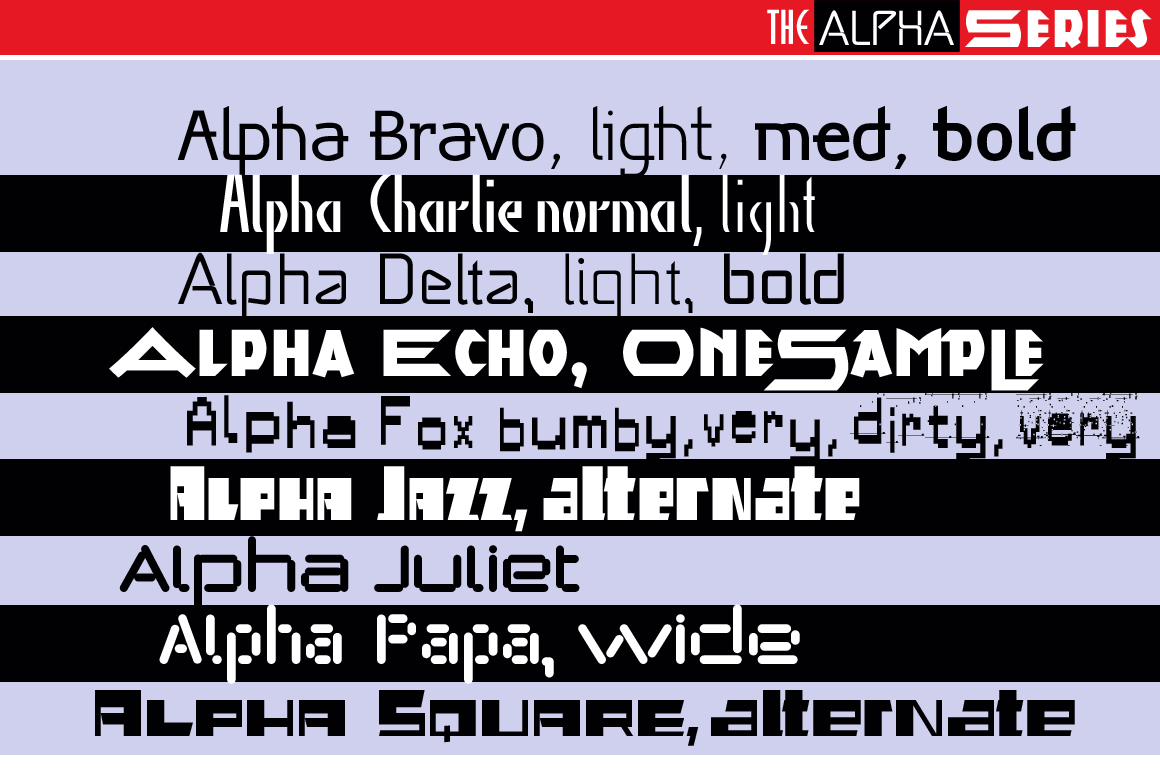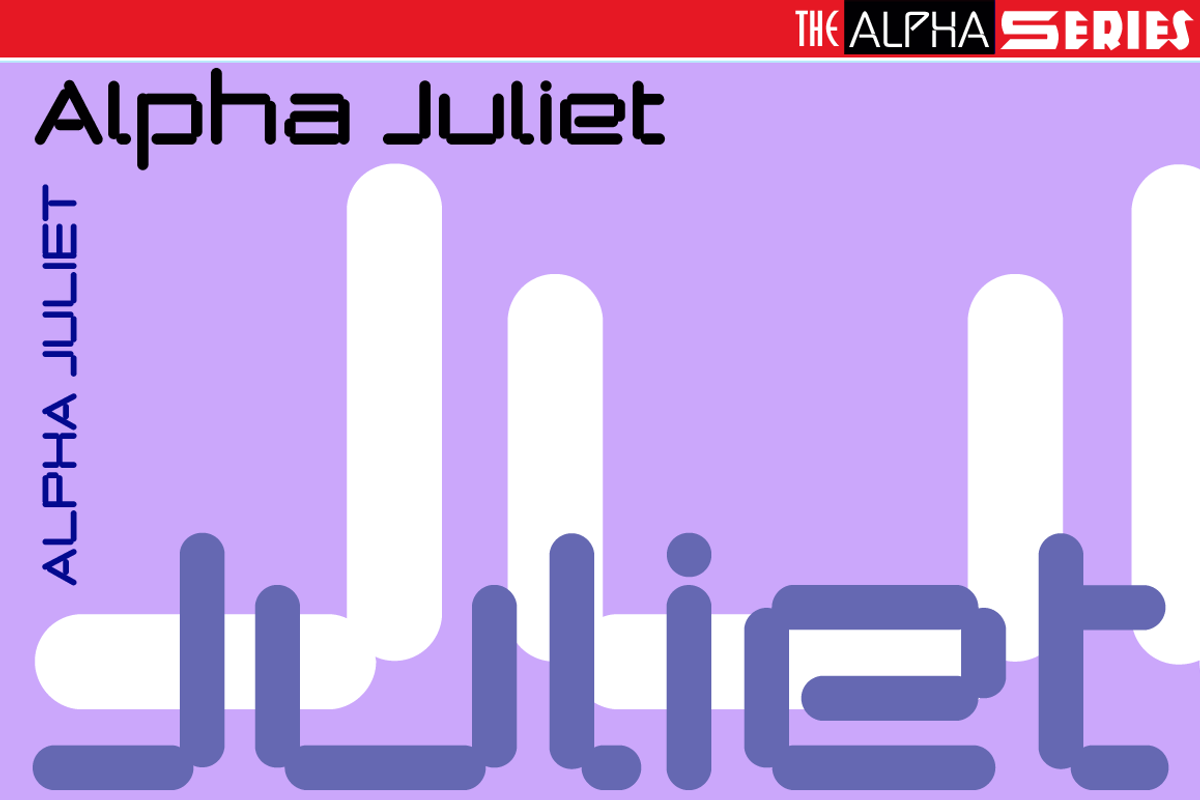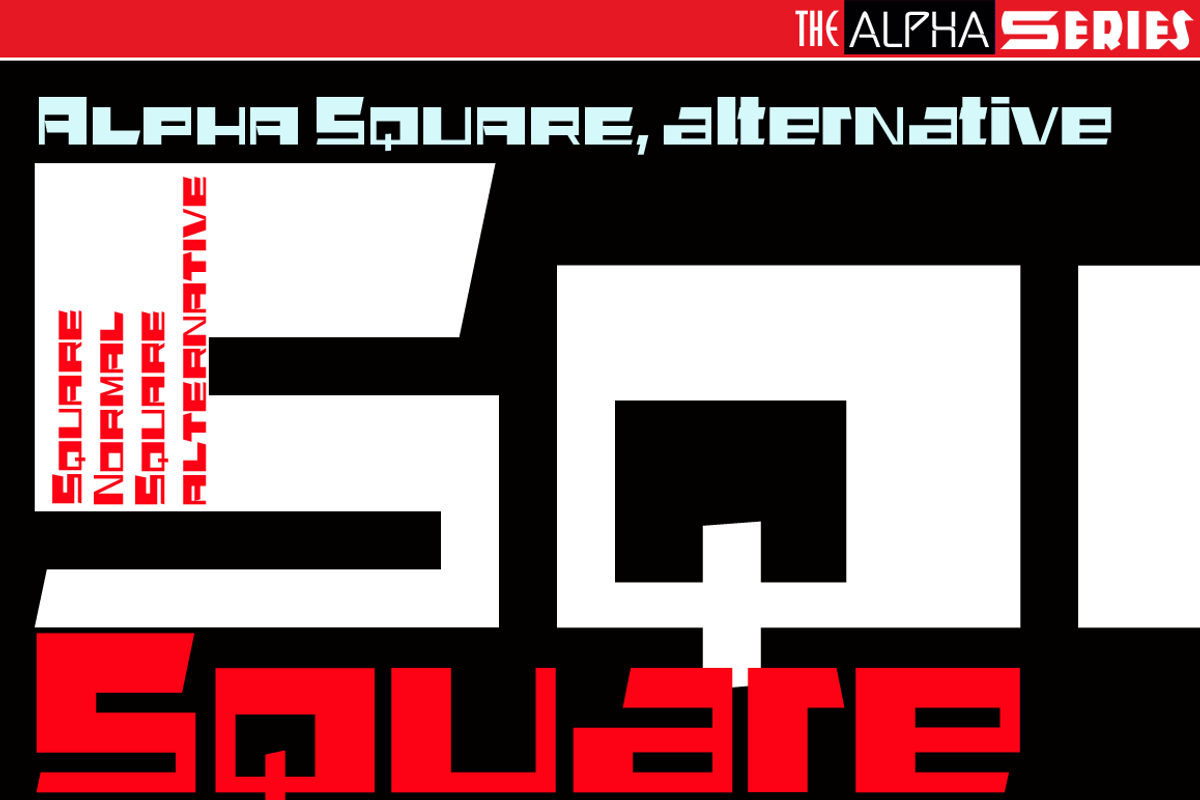
Alpha Series Font Collection
»Alpha Series« is a useful packet of 23 modern experimental fonts. You can use these fonts in many creative ways, the results will always be very typical. Now you can get the packet for a limited time at an incredibly reduced price! Enjoy!